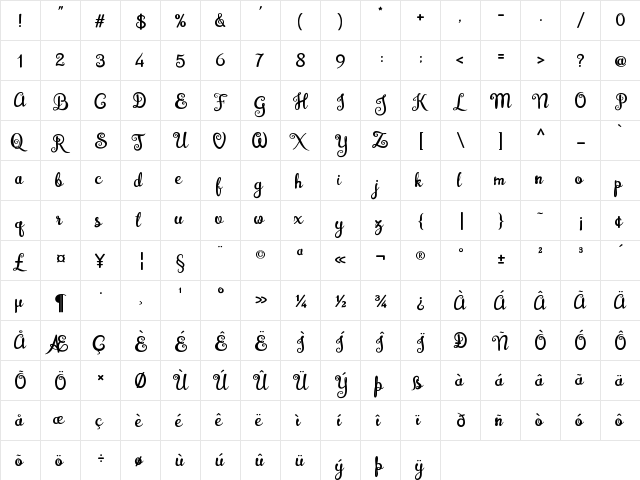
Brazilian Script Fill Regular
Design Context for Brazilian Script Fill Typeface
Brazilian Script Fill brings a calligraphic fluidity to the page — its connecting strokes and expressive curves give it an unmistakably human quality.
Font Pairing: Combine Brazilian Script Fill with a simple geometric sans for maximum contrast — the tension between flowing curves and clean structure is a classic typographic pairing.
Pro Tip: Pair Brazilian Script Fill with a clean sans-serif for supporting text. The contrast between fluid script and geometric structure creates an elegant typographic hierarchy.